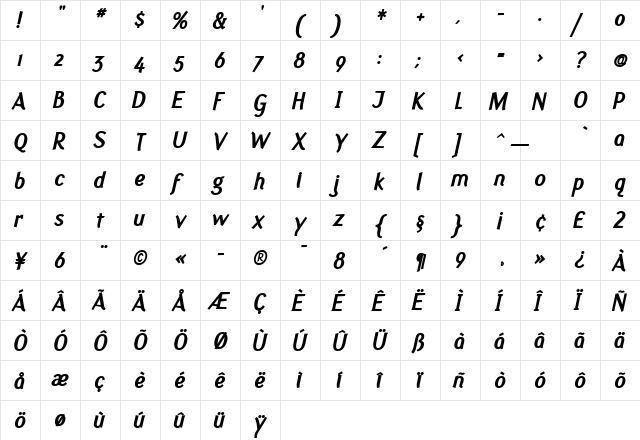
Fasciani-Senza Italic
Design Context for Fasciani-Senza Typeface
Fasciani-Senza offers clean, dependable letterforms without strong stylistic allegiance, making it a practical choice for designers who need flexibility. Its italic angle brings a sense of urgency and motion to the letterforms.